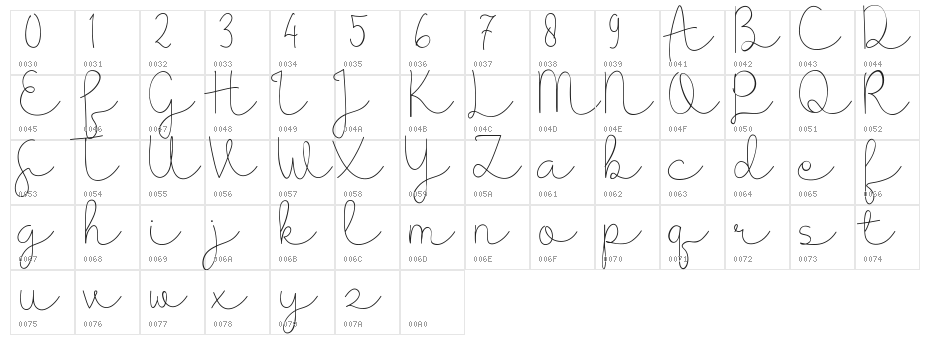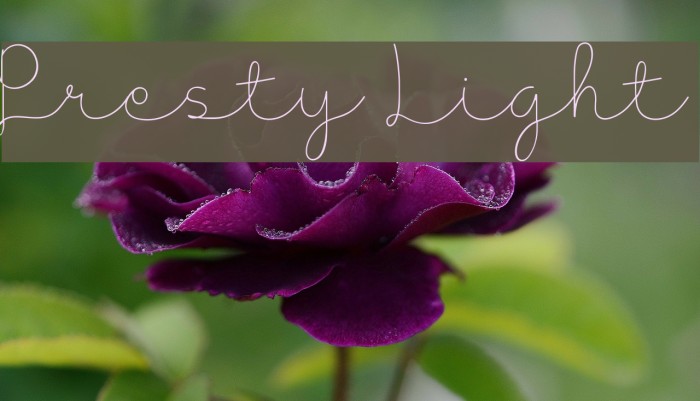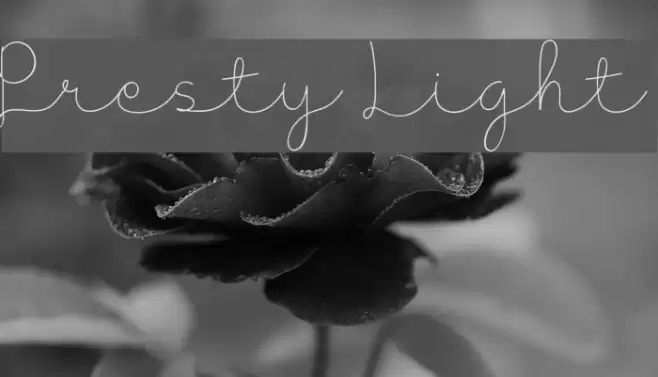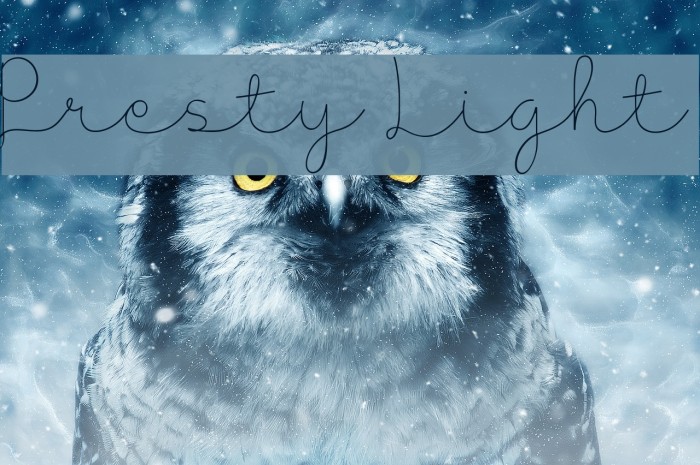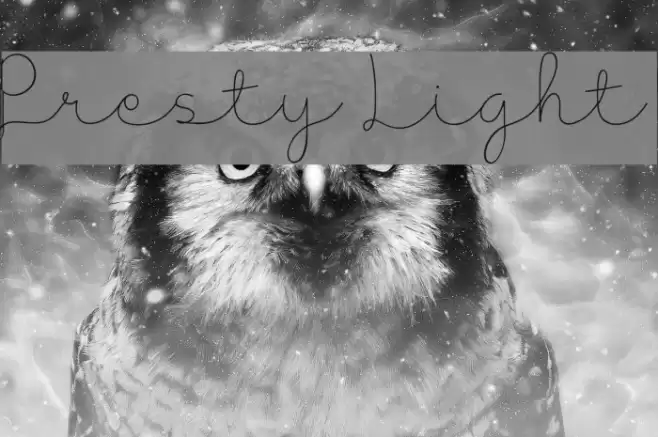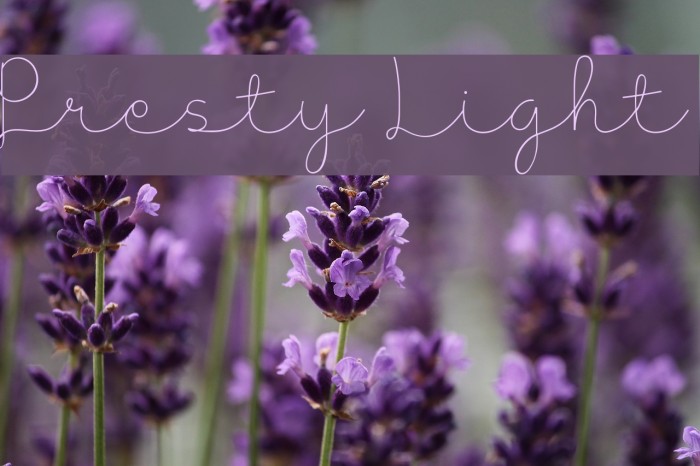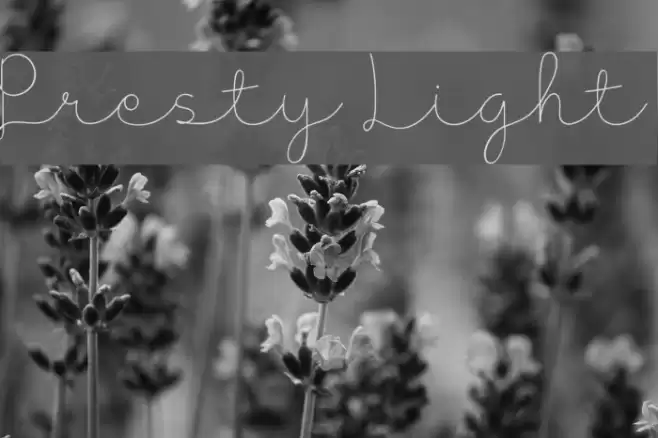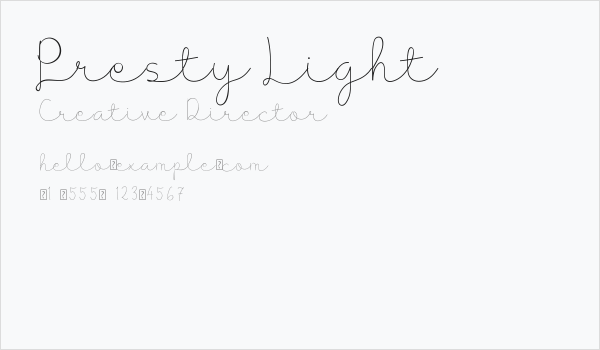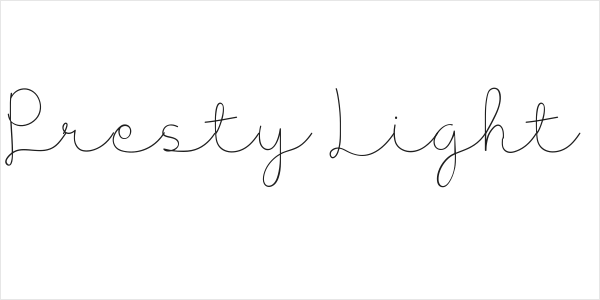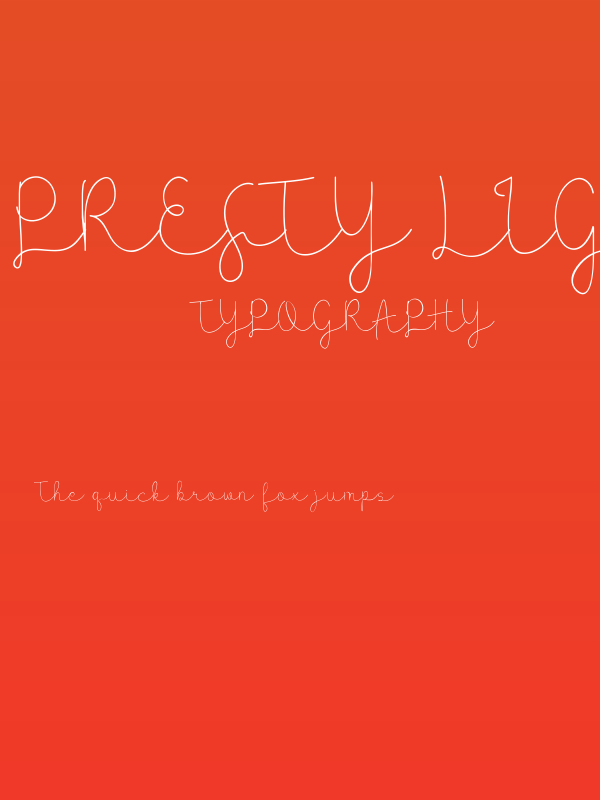
Presty Light Font
Presty Light Description
This font features a delicate and flowing script style, characterized by its thin, continuous strokes that mimic elegant handwriting. The uppercase letters are slightly taller and more pronounced, while the lowercase letters maintain a consistent, smooth flow. Numbers are distinct yet harmonize with the overall script style, adding a touch of sophistication. The special characters are seamlessly integrated, maintaining the font's cohesive look. This font exudes a sense of grace and refinement, making it suitable for projects that require a personal and elegant touch.
Overall StyleElegant
Use CaseLogos, Invitations, Personal Branding
Proposed ProjectsIdeal for wedding invitations, personal branding, elegant stationery, and romantic-themed designs.